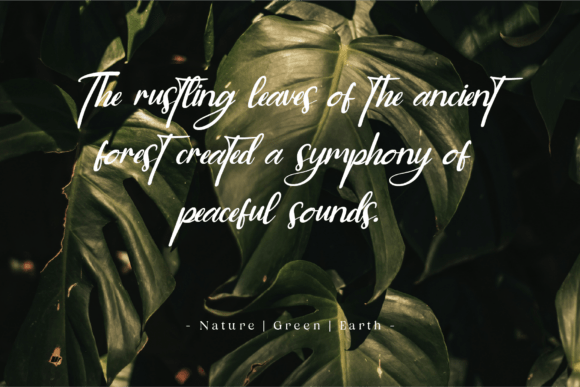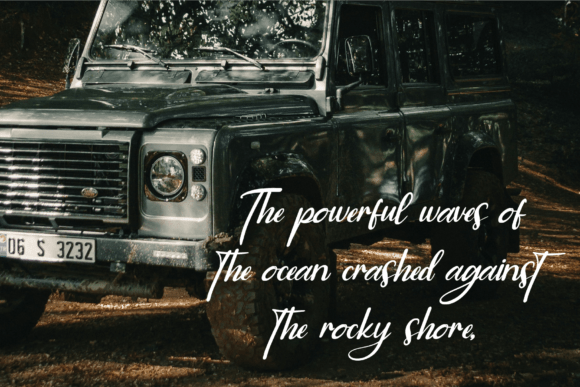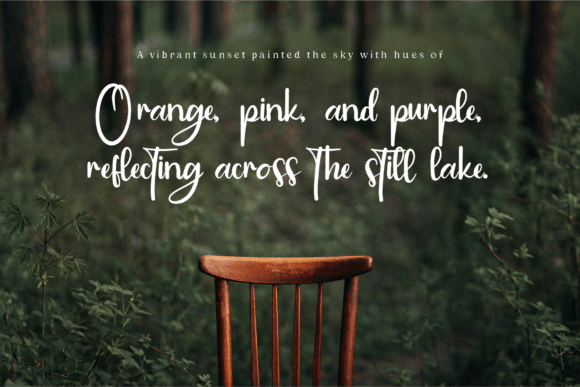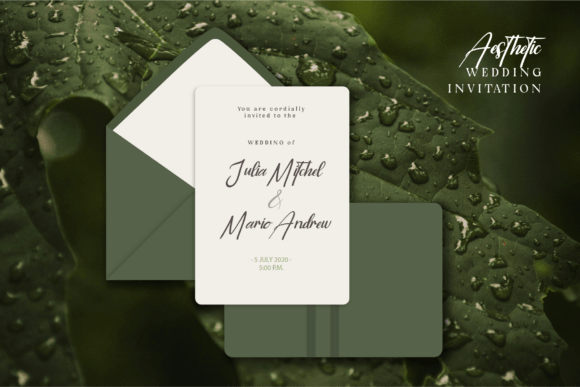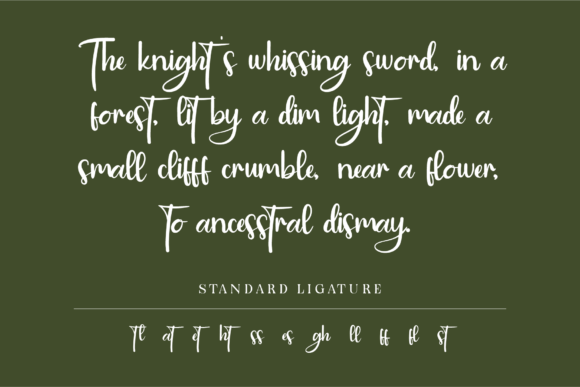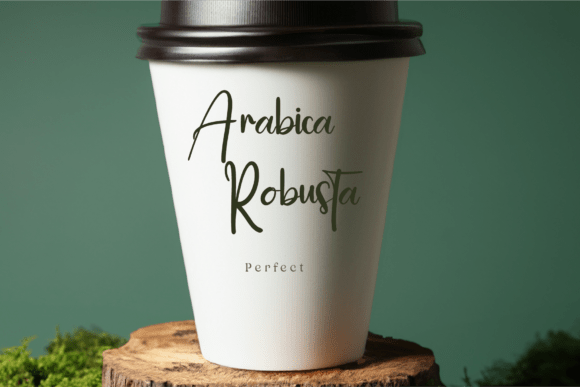
Introduction to Golden Glamoura Font Font
Fonts play a crucial role in design, and the Golden Glamoura Font font is a typeface that brings both character and versatility to any project. Whether you’re working on a branding project, a website, or a print design, the Golden Glamoura Font font offers a unique style that can elevate your work.
Discover the grace and refinement of Golden Glamoura, a beauty handwritten font crafted for those who appreciate elegance in every detail.
With its flowing curves, sophisticated strokes, and effortless charm, this typeface exudes luxury, making it the perfect choice for high-end branding, beauty and fashion projects, wedding stationery, and upscale product packaging Designed to be both expressive and versatile, Golden Glamoura strikes a balance between modern chic and timeless elegance.
Key Features of Golden Glamoura Font Font
Why Choose Golden Glamoura Font Font?
The Golden Glamoura Font font is more than just a typeface – it’s a design tool that helps you communicate your message with style and clarity. Its unique character set and versatile design make it suitable for a wide range of applications, from elegant invitations to bold headlines.
With its carefully crafted letterforms and balanced proportions, the Golden Glamoura Font font ensures readability and visual appeal across all mediums.
What makes Golden Glamoura Font font special?
The Golden Glamoura Font font stands out with its unique design, exceptional readability, and versatility across various design applications.